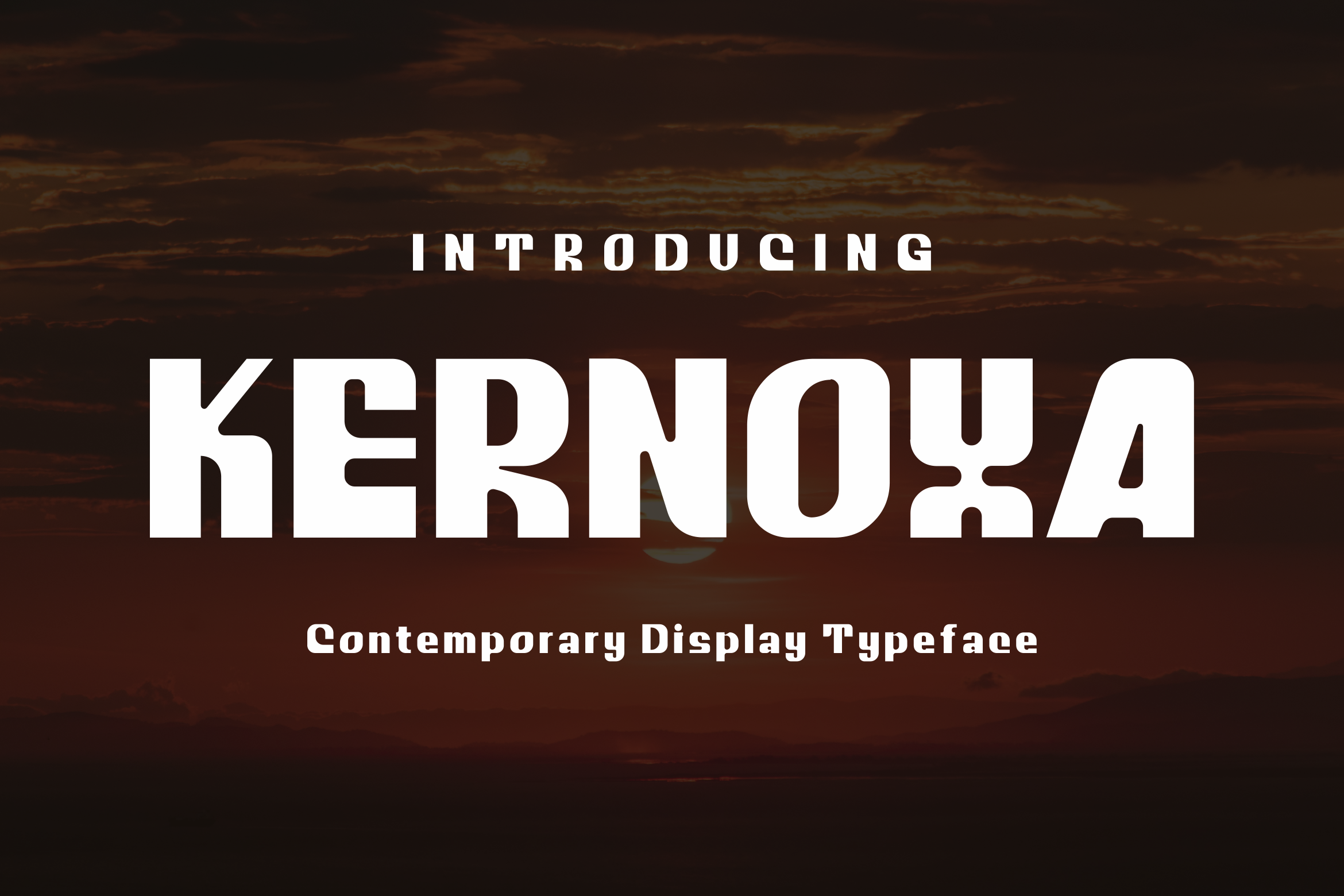
Kernoxa Display Typeface
Kernoxa – Contemporary Bold Display Typeface
Kernoxa is a bold contemporary display typeface created to bring a strong, distinctive personality to modern visual projects. Its solid construction, unconventional letterforms, and geometric details give every word a confident and memorable appearance.
Designed especially for large-scale typography, Kernoxa works beautifully for branding, posters, editorial layouts, fashion graphics, album covers, packaging, social media, advertising, headlines, and creative identity projects.
The typeface combines heavy visual impact with playful character shapes, making it suitable for both clean minimalist compositions and more experimental designs. Its uppercase and lowercase characters have their own unique personality while remaining visually consistent as a complete type system.
* Branding & visual identity
* Posters & advertising
* Editorial headlines
* Fashion & streetwear graphics
* Album and music artwork
* Packaging design
* Logo concepts
* Social media content
* Website headlines
* Creative campaigns
* Uppercase characters
* Lowercase characters
* Numerals
* Punctuation & symbols
* Bold display style
* Distinctive geometric letterforms
* Modern contemporary character
Kernoxa is made for designers who want typography to become the main visual element rather than simply supporting the design.
Make it bold. Make it distinctive. Make it Kernoxa.